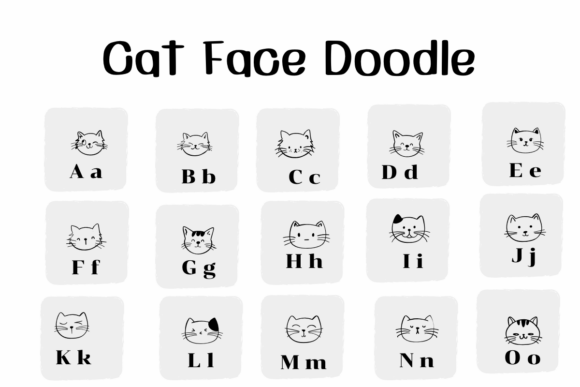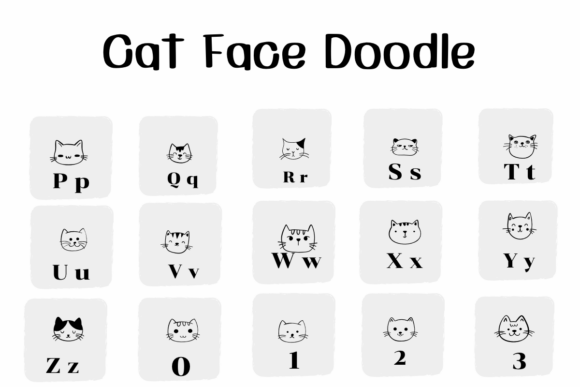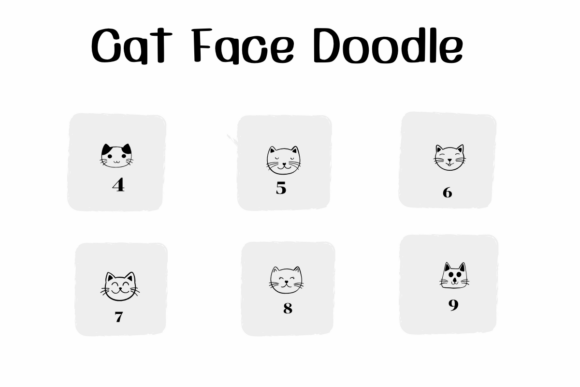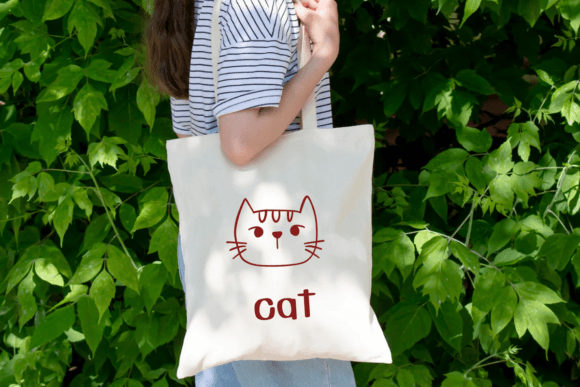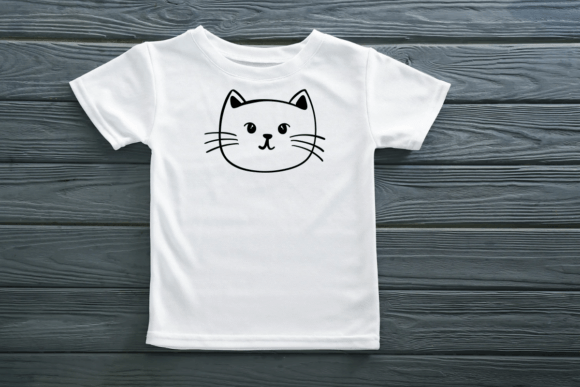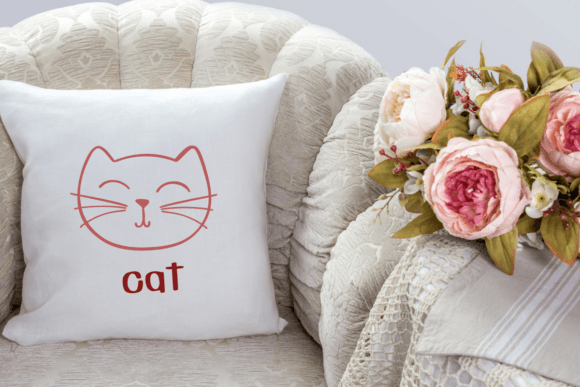
Get Your Purrfect Touch with the Cat Face Doodle Font
Have you ever sat in front of a blank canvas or screen, struggling to come up with the perfect design idea? You stare blankly, your mind a jumble of colors and shapes, until suddenly – it hits you. The spark of creativity ignites, and you can’t wait to bring your vision to life. That’s exactly what happened to designers who discovered the whimsical Cat Face Doodle Font.
This adorable dingbats font is more than just a pretty face; it’s a versatile tool for enhancing your creative projects. From wedding invitations to DIY crafts, decorations, and logos, the Cat Face Doodle Font adds a playful touch that’s sure to captivate your audience. Whether you’re a seasoned pro or just starting out, this font is a valuable addition to your design arsenal, offering endless possibilities for self-expression and creativity.
- Unique Characteristics: The Cat Face Doodle Font features a playful, hand-drawn design with cute cat faces, making it perfect for adding a touch of whimsy to designs.
- Characters: The font includes a wide range of characters, including uppercase and lowercase letters, numbers, punctuation marks, and special characters.
Cat Face Doodle Font Review
Overall, I’d say the Cat Face Doodle Font is a fun and playful addition to any design project. It’s perfect for creating a whimsical and lighthearted atmosphere. Here are some things that work well:
- ✨ The font is highly customizable, with a range of line widths and styles to choose from.
- ✨ It’s incredibly versatile, suitable for both digital and print designs, from social media graphics to children’s books.
- ✨ The font is well-suited for creating eye-catching headings and titles, adding a touch of personality to your designs.
- ⚠️ The font may not be suitable for formal or professional designs, as it can come across as childish or immature.
- ⚠️ Some characters may not be as detailed or intricate as others, which can be a bit jarring in certain contexts.
Overall, I think the Cat Face Doodle Font is a great choice for designers looking to add some personality to their projects. While it may not be suitable for every type of design, it’s a fun and versatile option that can help you stand out from the crowd.
Use the Cat Face Doodle Font for:
* Social media graphics and posts
* Digital invitations and party decorations
* Quirky illustrations and artwork
* Adding a playful touch to your designs